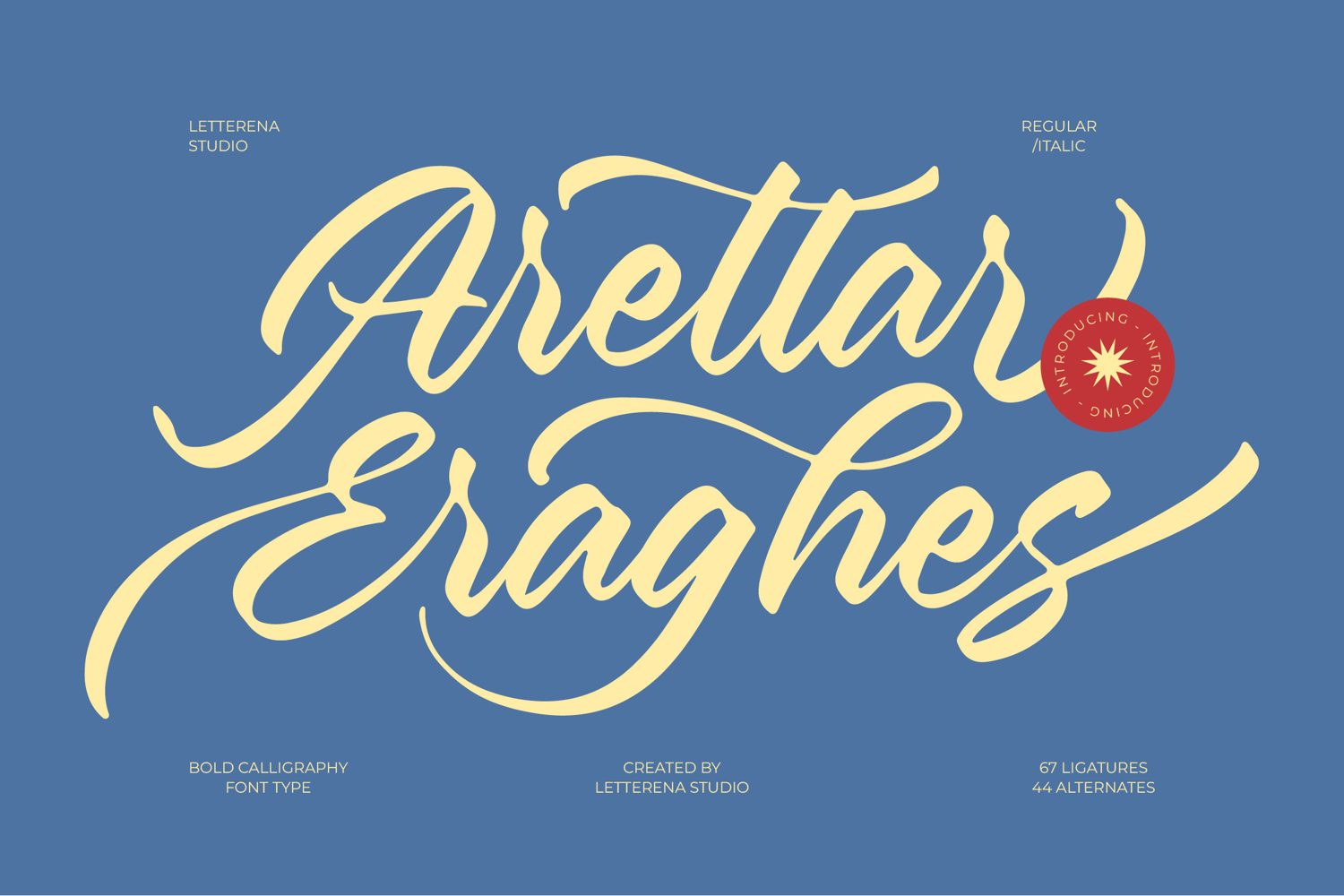
Aretlar Eraghes - Bold Calligraphy Font Type
Aretlar Eraghes Italic
Aretlar Eraghes
Aretlar Eraghes - Bold Calligraphy Font Type, from Letterena, is a Luxury Script font, suitable for any projects such as: logos, branding projects, homeware designs, product packaging, mugs, quotes, posters, shopping bags, t-shirts, book covers, name card, invitation cards, greeting cards, label, photography, watermark, special events, and all your other luxury and beautiful projects that need a Luxury Script taste.
67 Ligature 44 Alternate & Swashes